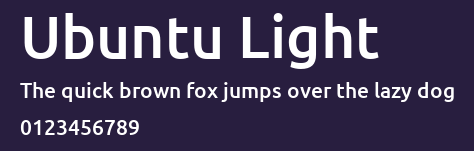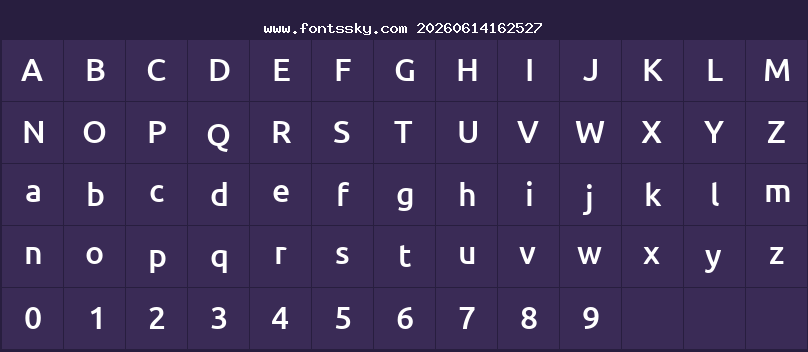
• Font Name: Ubuntu Light
• Designer: Dalton Maag Ltd
• Description: The Ubuntu Font Family are libre fonts funded by Canonical Ltd on behalf of the Ubuntu project. The font design work and technical implementation is being undertaken by Dalton Maag. The typeface is sans-serif, uses OpenType features and is manually hinted for clarity on desktop and mobile computing screens. The scope of the Ubuntu Font Family includes all the languages used by the various Ubuntu users around the world in tune with Ubuntu's philosophy which states that every user should be able to use their software in the language of their choice. The project is ongoing, and we expect the family will be extended to cover many written languages in the coming years.
About Ubuntu Light.ttf
Ubuntu Light.ttf is a modern, elegant sans-serif font designed for ultimate readability and visual harmony. Perfect for branding, headlines, web design, and print materials.